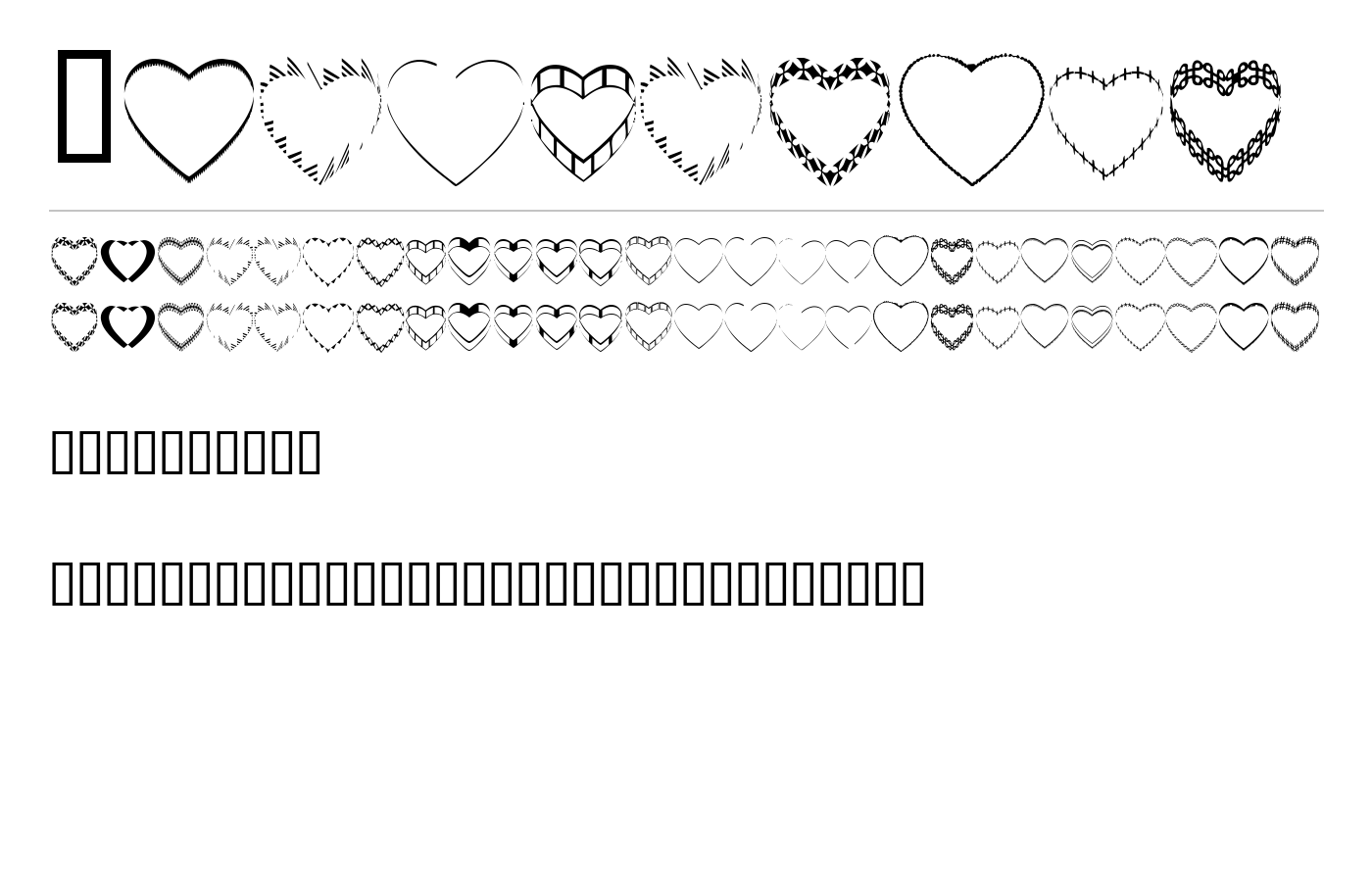
4YEOhearts is a decorative dingbat font featuring a charming collection of heart shapes with various intricate patterns and textures. This playful and whimsical font offers a range of unique heart designs, perfect for adding a creative and affectionate touch to greeting cards, invitations, or romantic-themed projects. Its artistic variety and light-hearted style make it ideal for decorative accents rather than body text, lending a fun and expressive mood to any design.
4YEOhearts Font
About 4YEOhearts Font